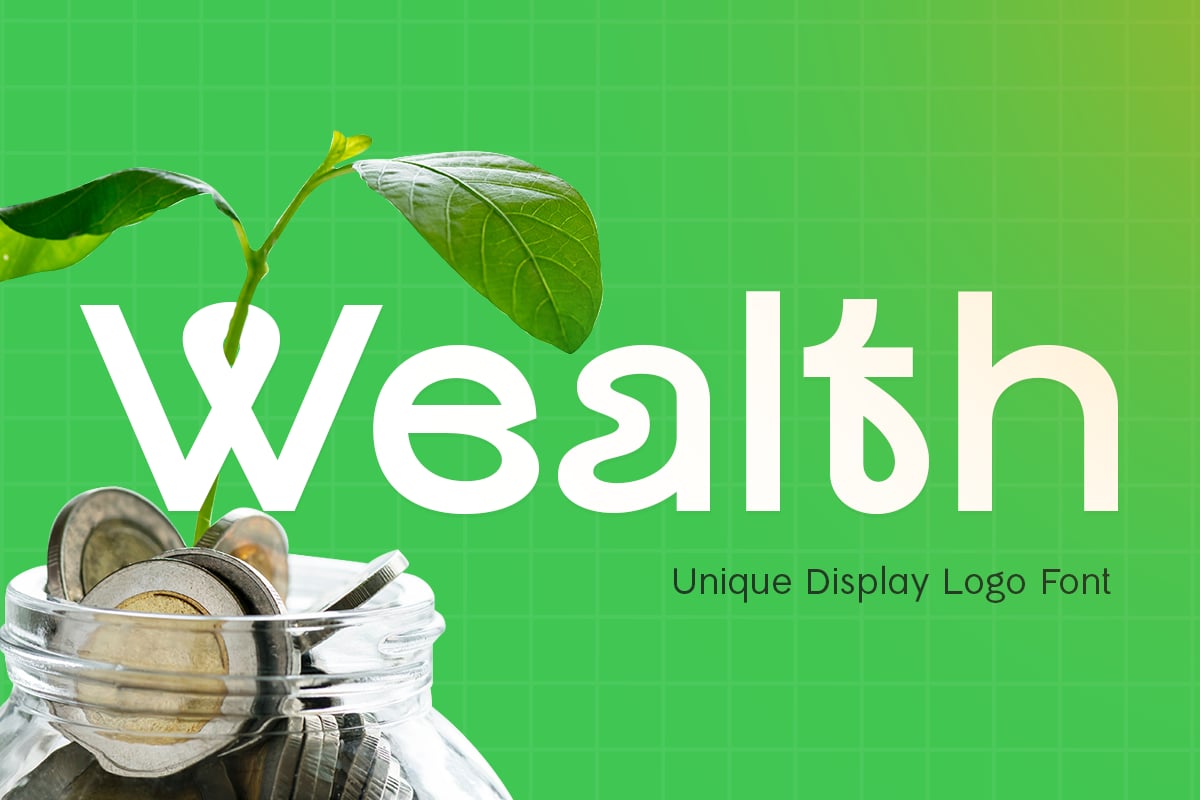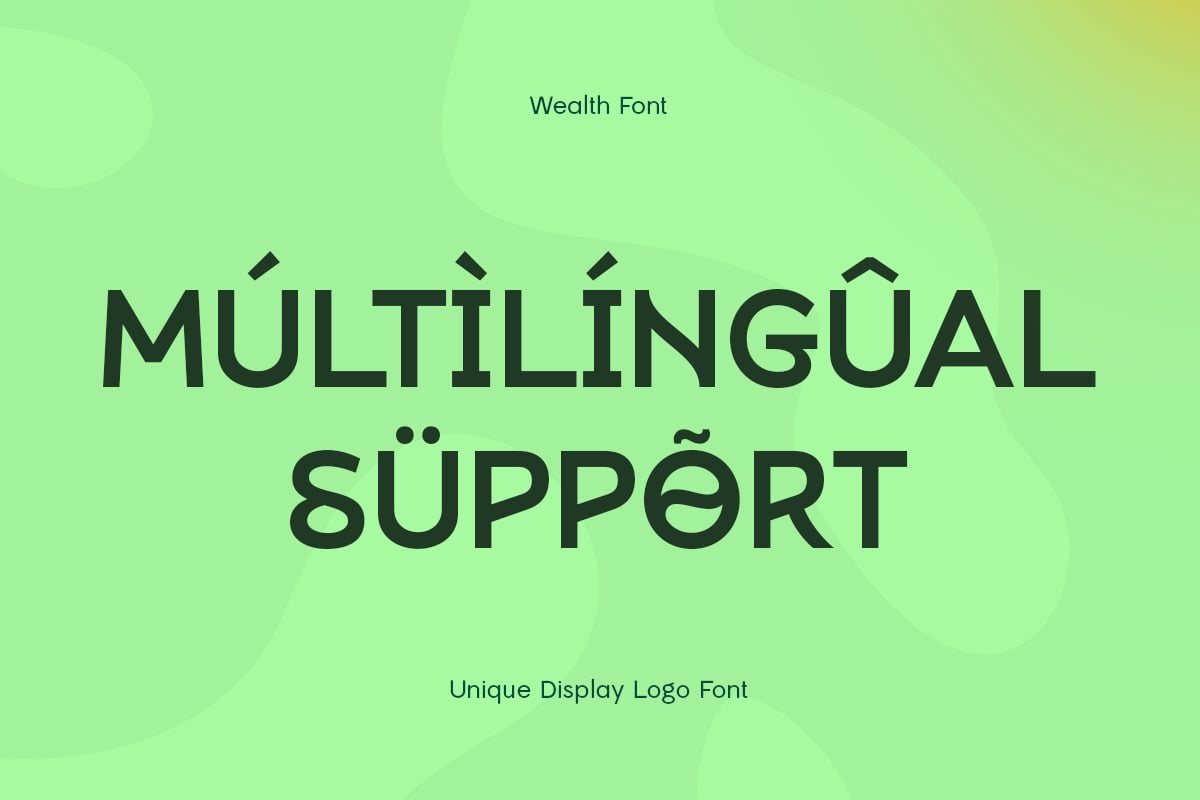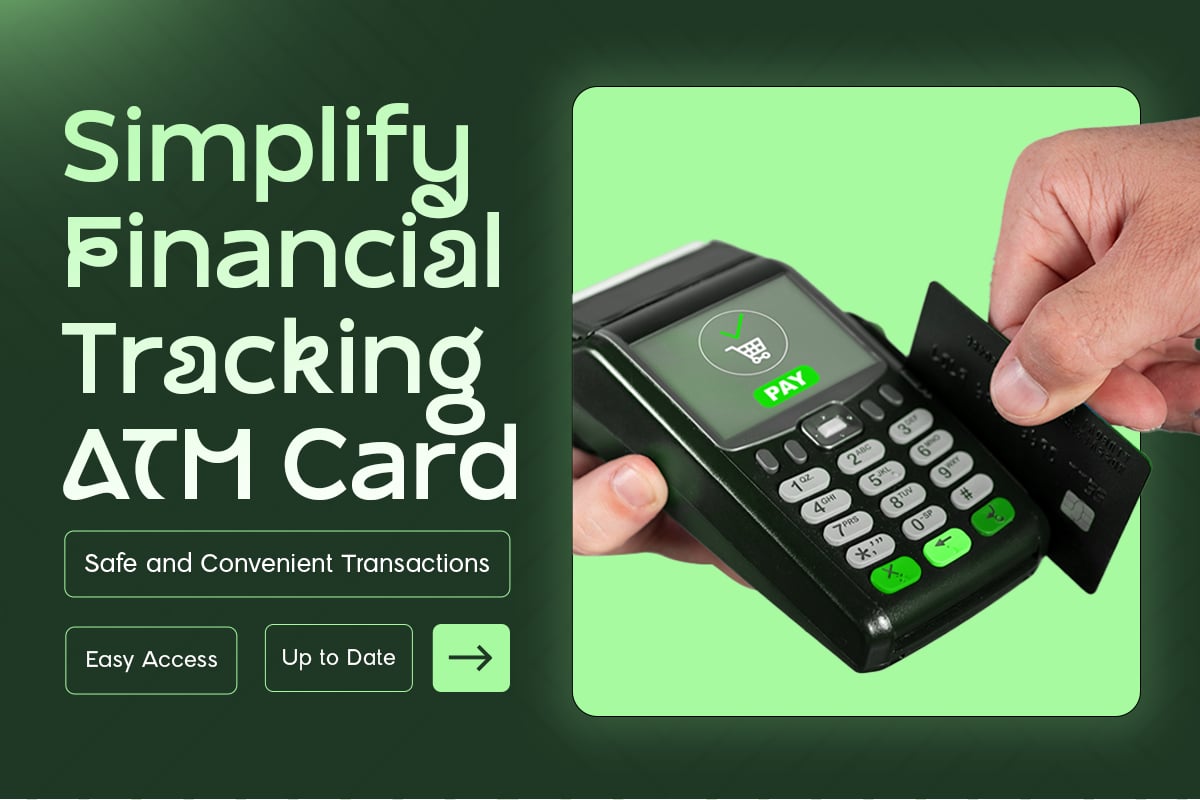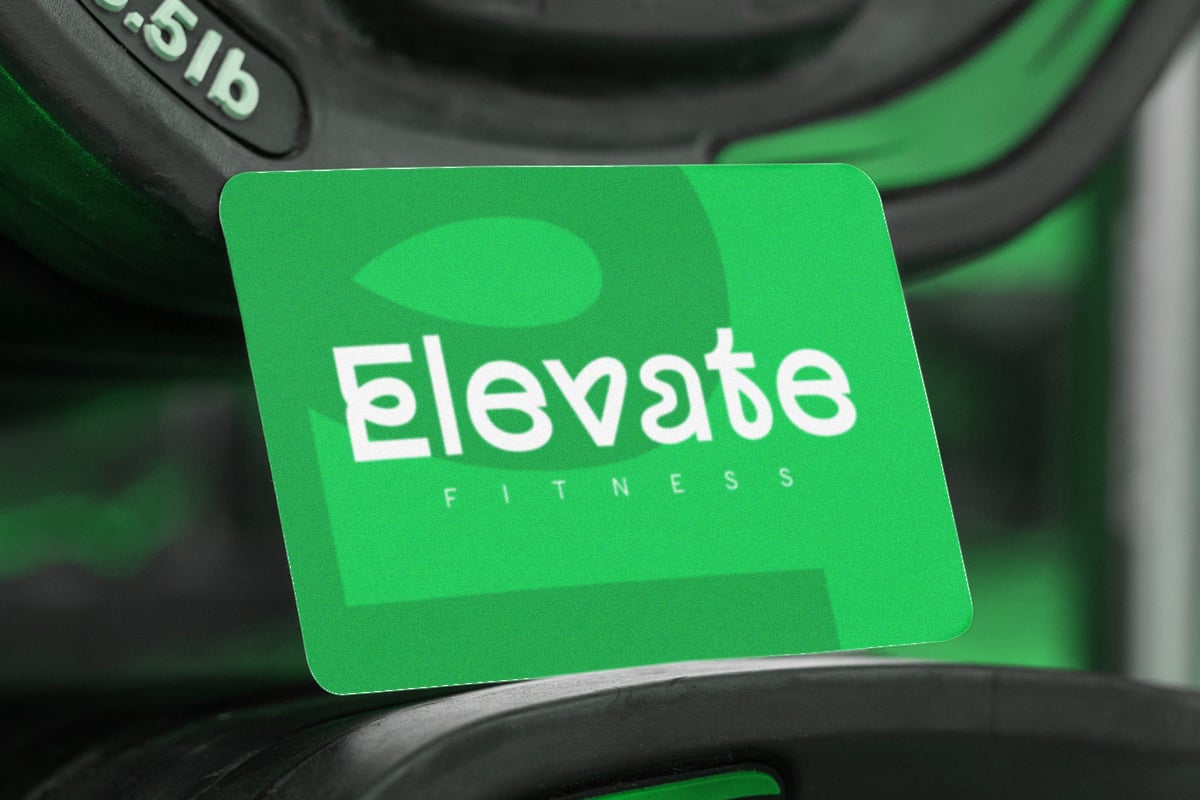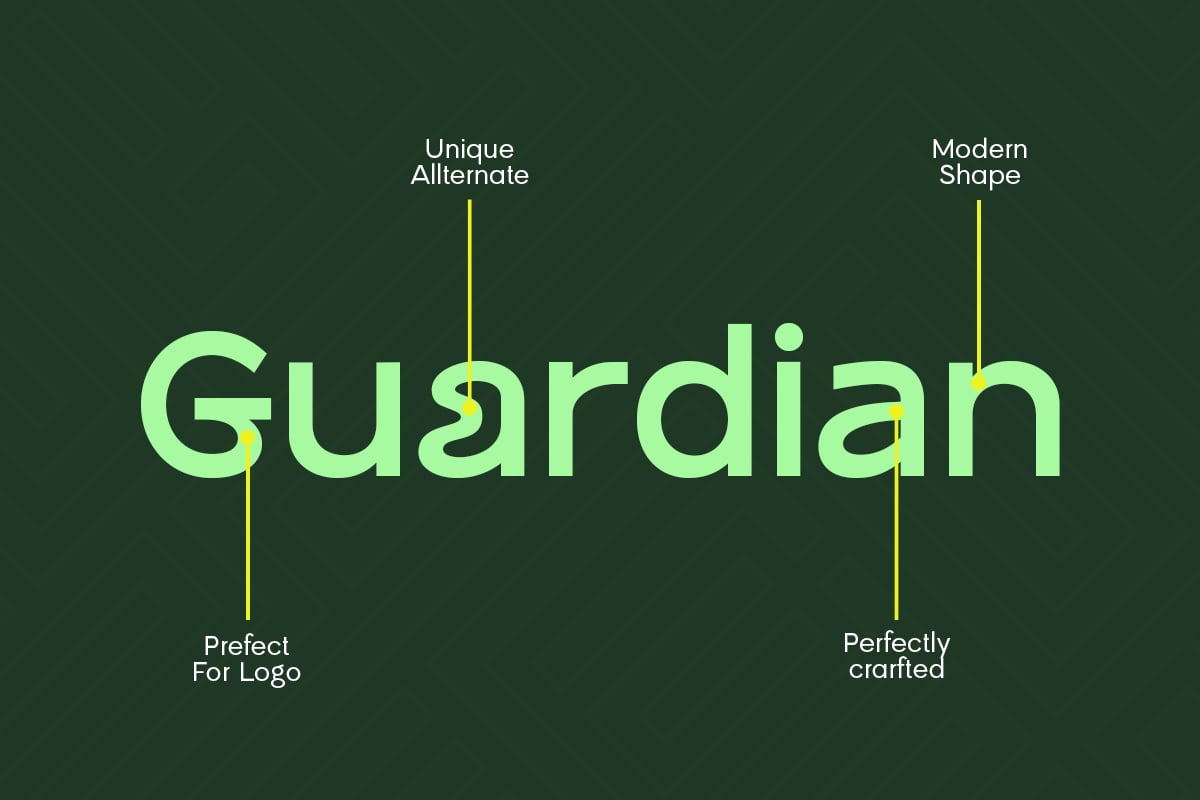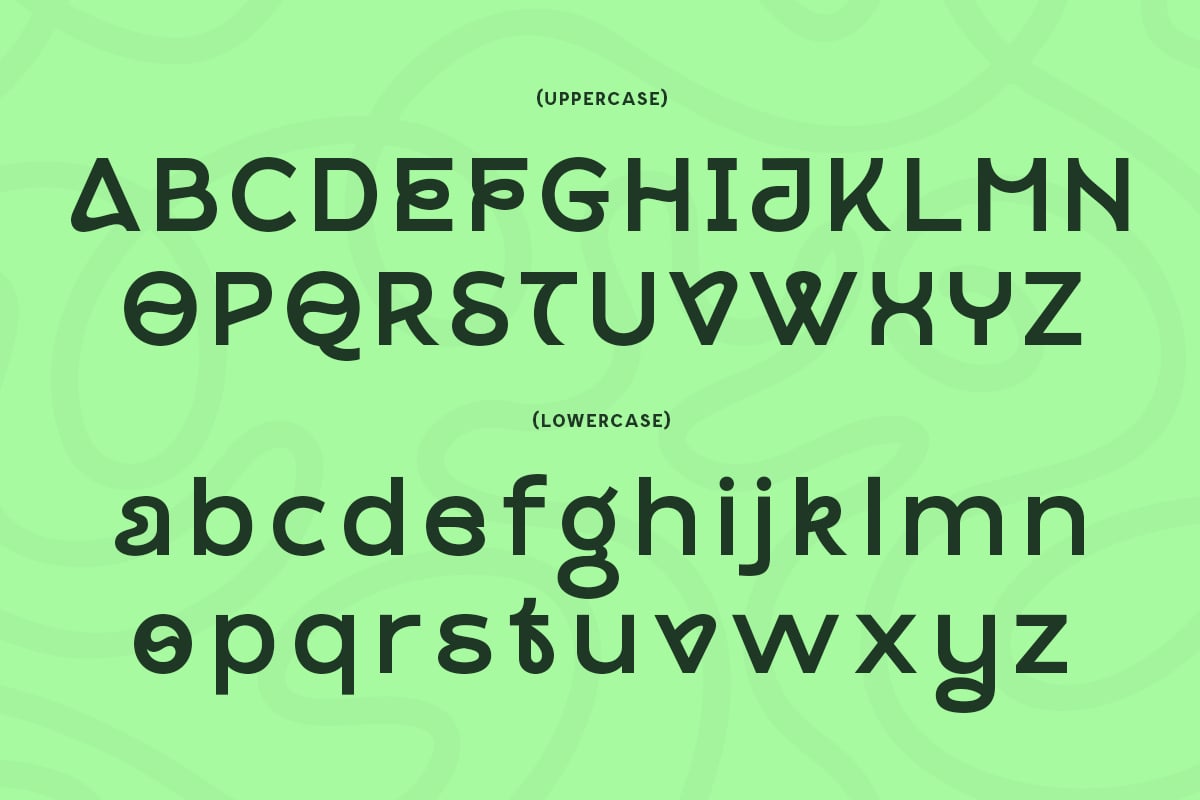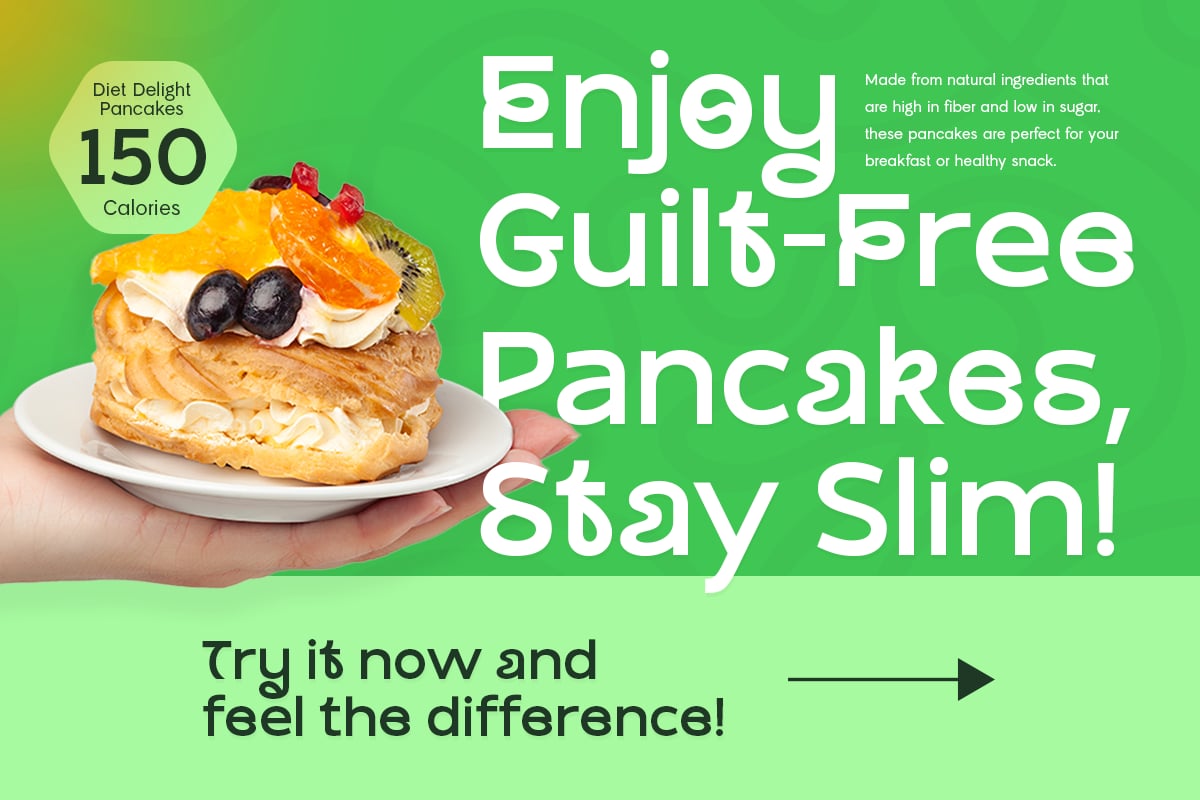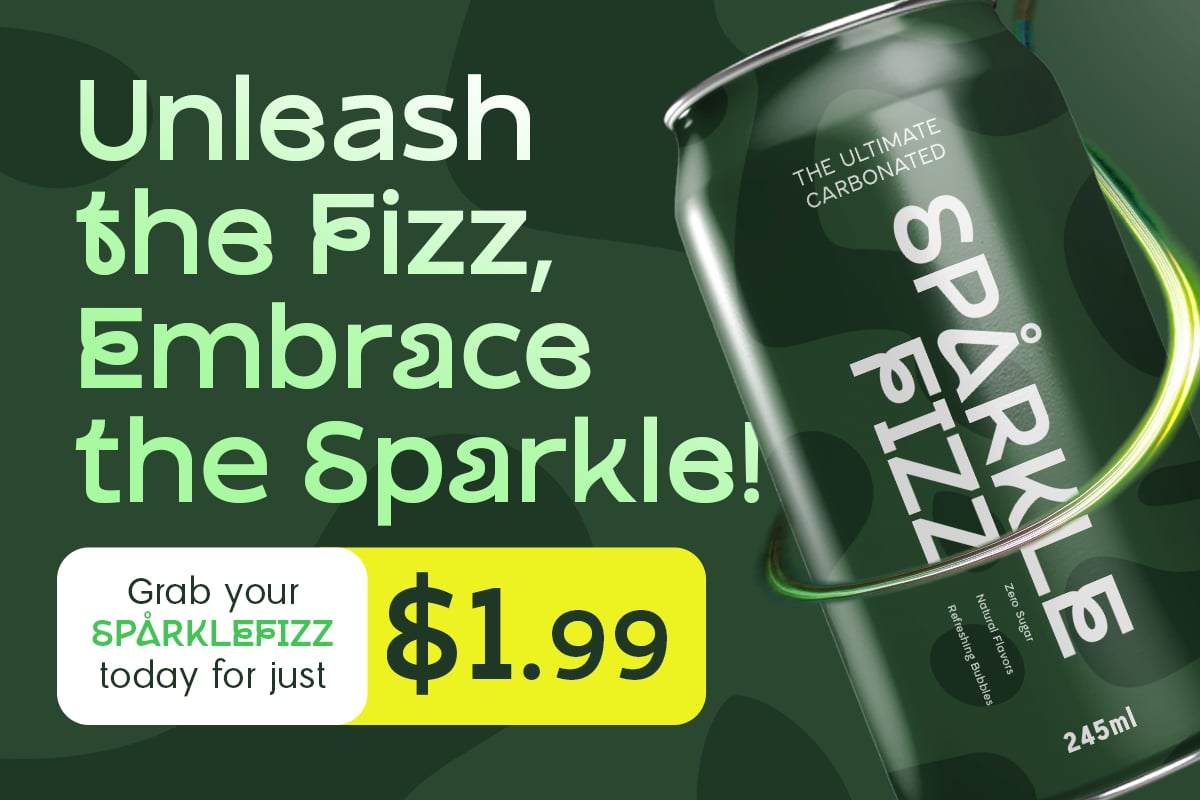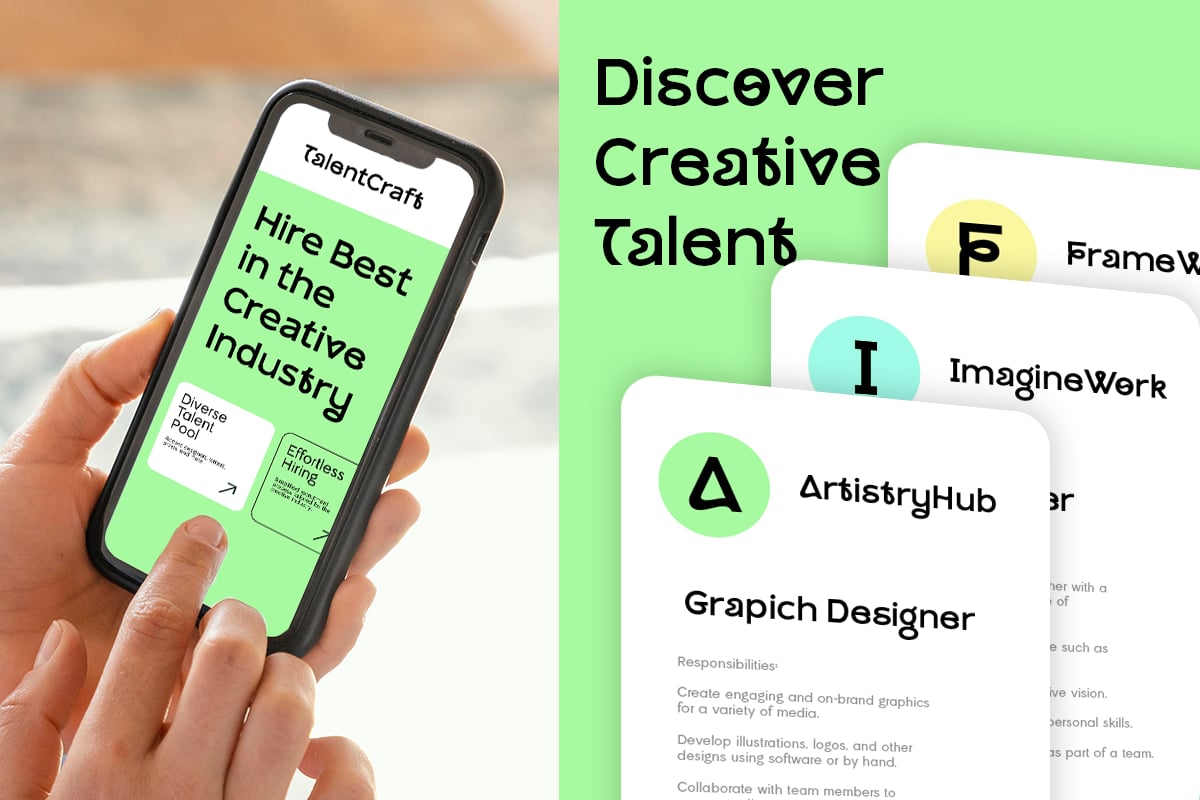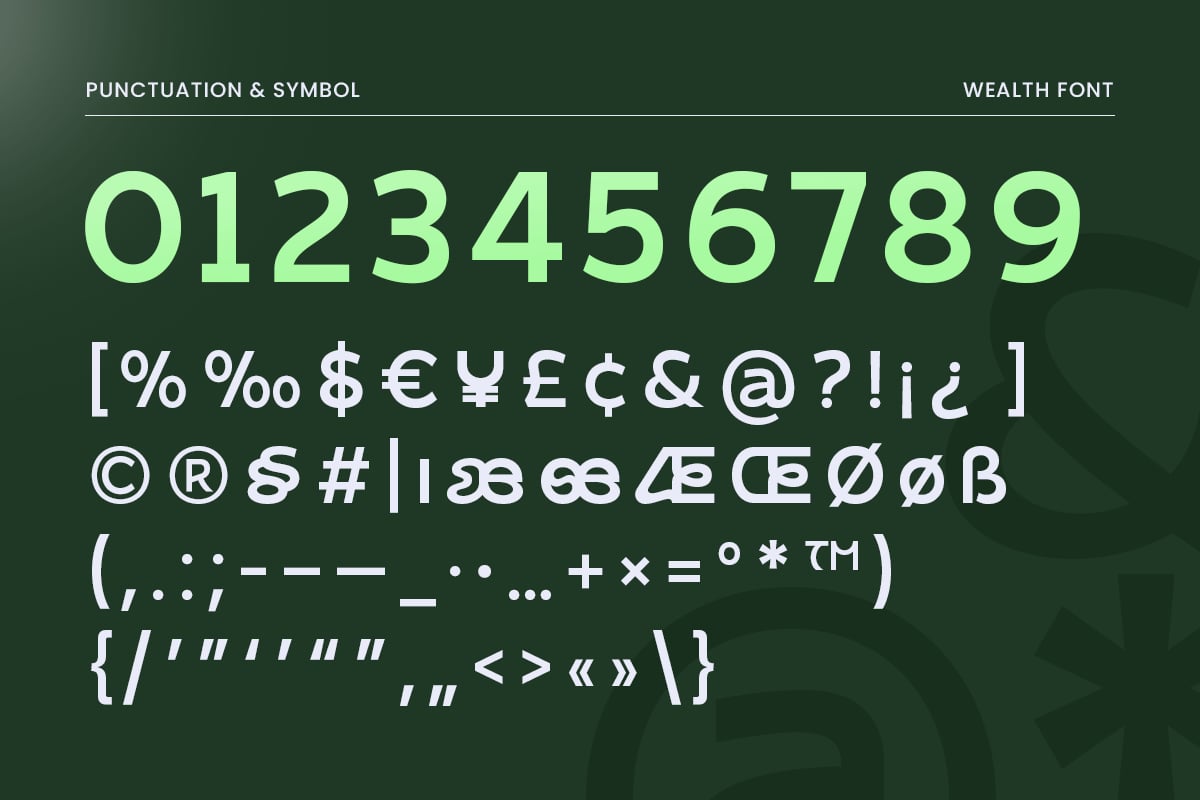
Wealth – Unique Display Logo Font
Wealth is a unique display logo font designed to make a bold statement for brands that want to exude luxury and prominence. Its striking letterforms and creative design elements ensure your brand identity stands out and leaves a lasting impression. Perfect for high-end brands, fashion, or any project that requires a touch of elegance and distinction.
This font works especially well for logos, headings, or large text displays where a sense of grandeur and exclusivity is needed. Wealth’s strong and refined design makes it ideal for businesses that want to communicate success, prestige, and confidence in their branding.
With a wide range of OpenType features and alternate characters, Wealth gives you the flexibility to craft a one-of-a-kind logo or design that reflects your brand’s unique personality. Its versatility across different mediums ensures your brand looks premium and professional at every touchpoint.
Wealth Unique Display Logo Font Features:
- Unique Display Alternative Characters Ready